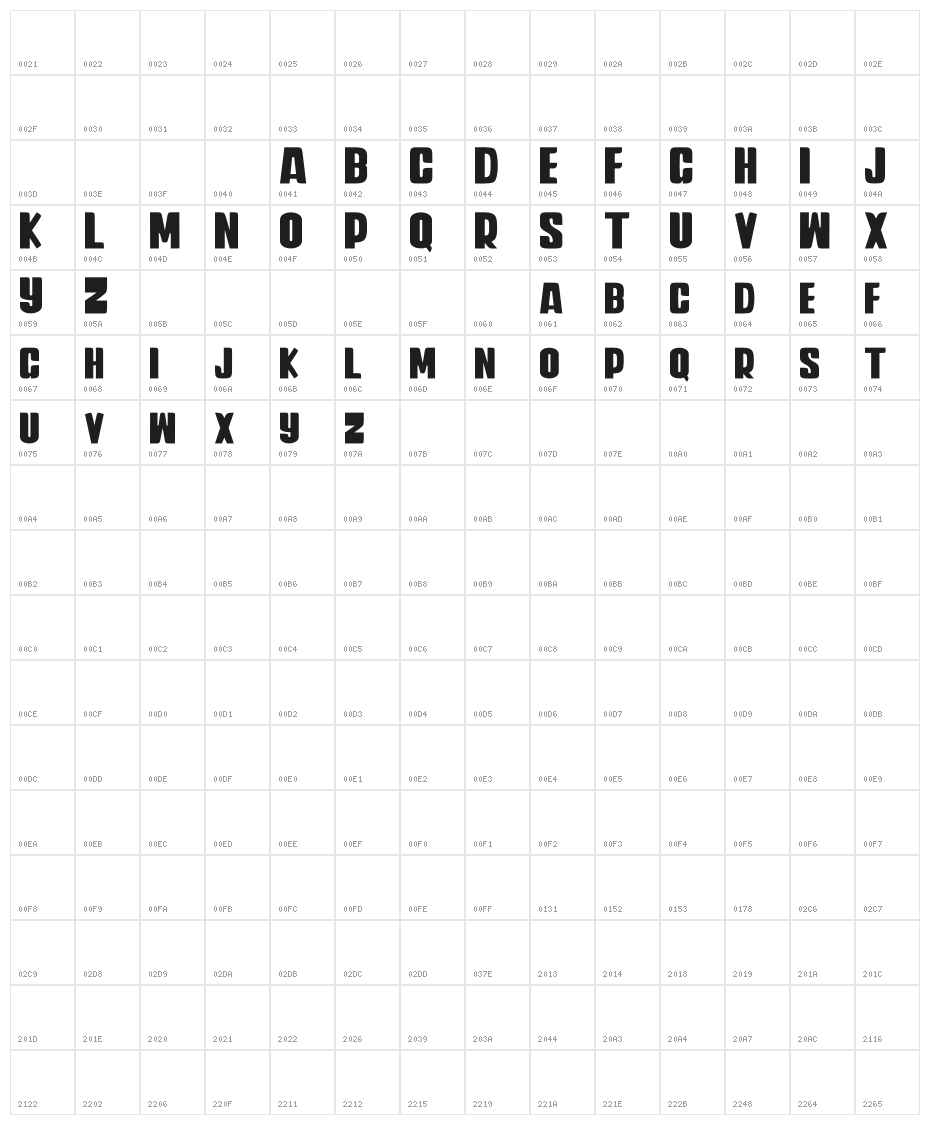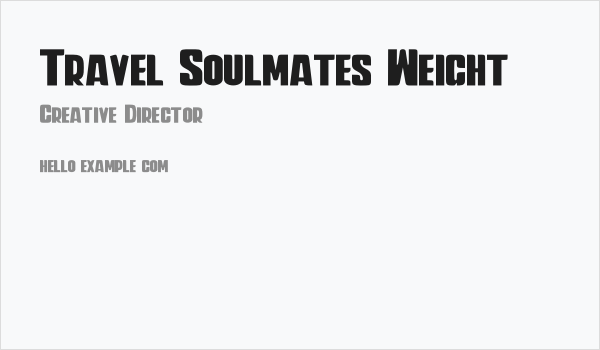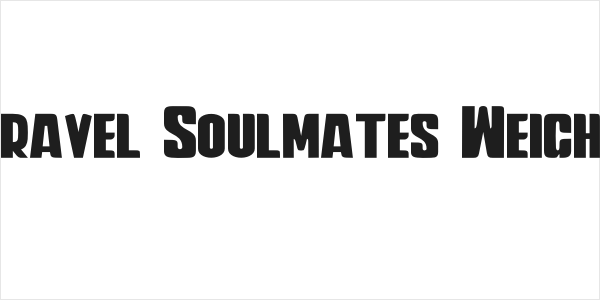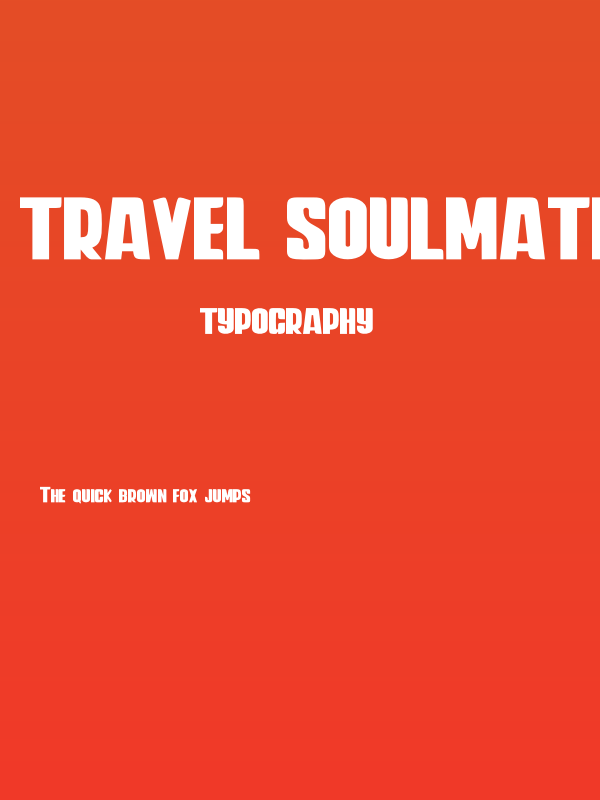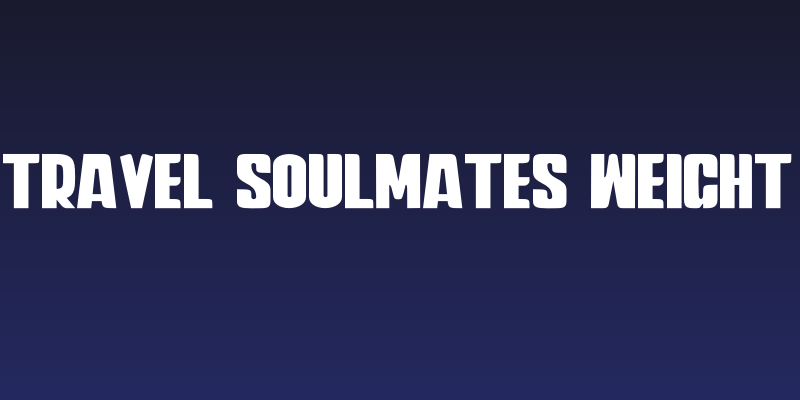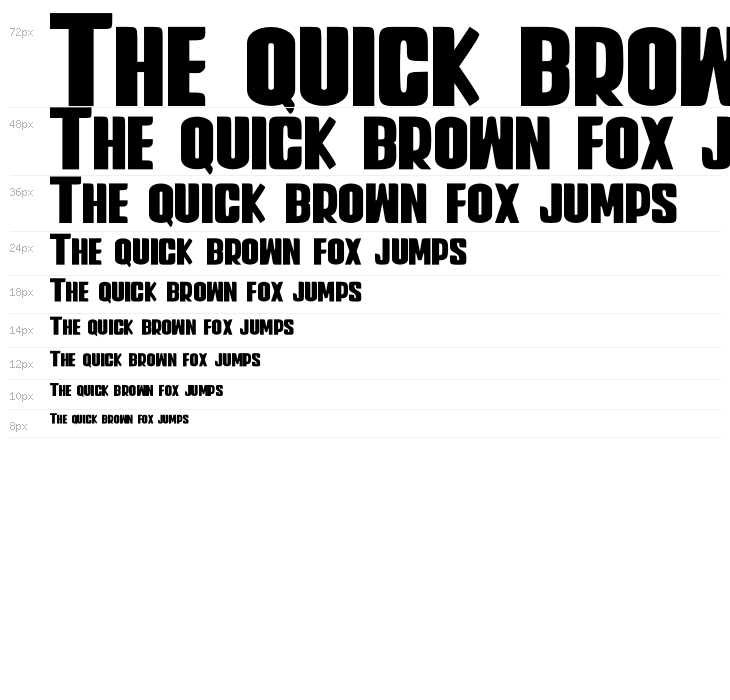
Travel Soulmates Weight Font
Travel Soulmates Weight Description
This font features a bold and impactful design with strong geometric shapes and a modern aesthetic. The uppercase letters are characterized by their thick, uniform strokes and sharp angles, giving them a robust and commanding presence. The font's style is reminiscent of vintage poster typography, yet it maintains a contemporary edge. Its boldness and clarity make it highly legible, even from a distance, making it ideal for attention-grabbing headlines and titles. The consistent stroke weight across all characters ensures a cohesive and balanced appearance, while the slight curvature in certain letters adds a touch of uniqueness and flair.
| Proposed Projects | Ideal for posters, branding, headlines, and any project requiring a strong visual impact. |